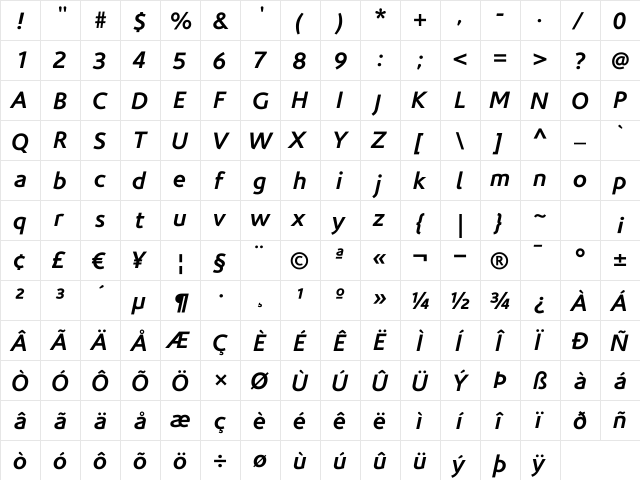
CorisandeBold Italic Regular Font Preview
Design Context for CorisandeBold Italic Typeface
CorisandeBold Italic takes a measured approach to typography — its balanced proportions and neutral character make it a reliable workhorse for both digital and print work. The slanted form adds forward momentum and visual energy. The heavy weight commands attention and anchors typographic hierarchies.
Pro Tip: Use CorisandeBold Italic for emphasis, pull quotes, and subheadings where its slanted energy can add rhythm to the layout.